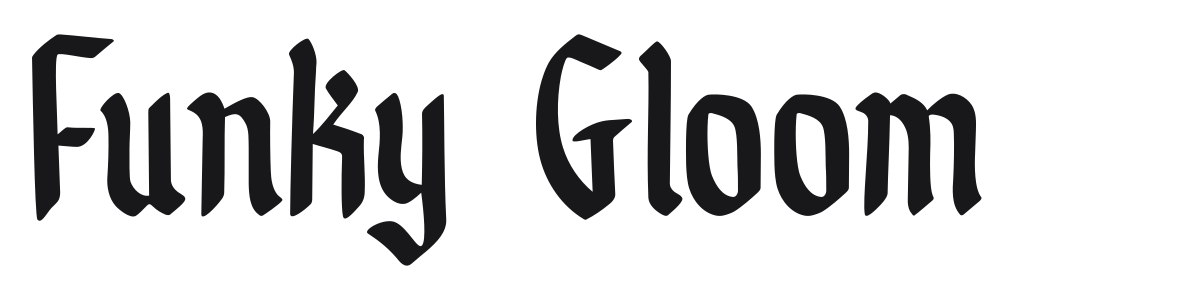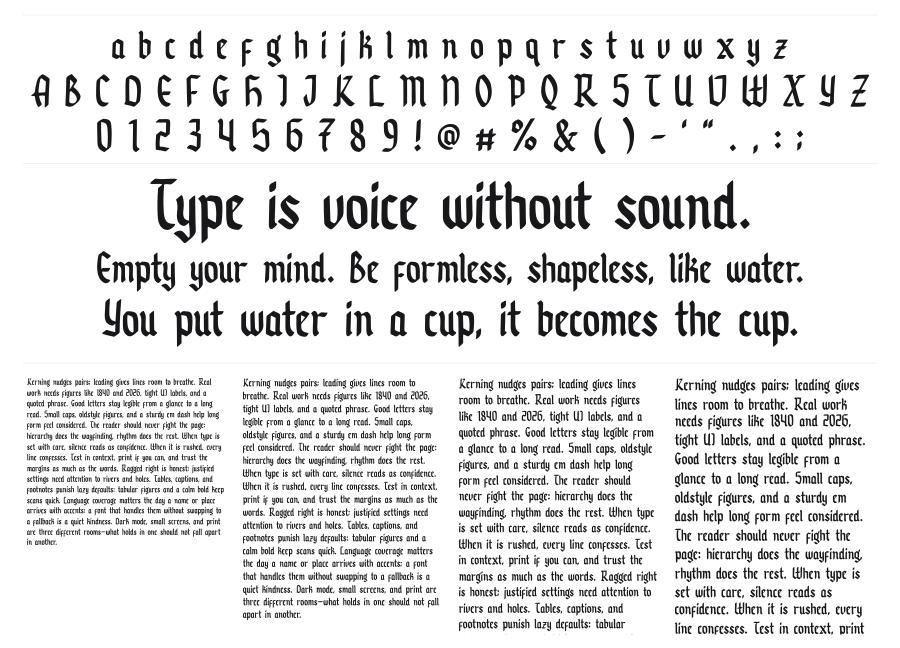
Funky Gloom
Funky Gloom is a heavy Gothic blackletter with angular, notched joints and a raw, confrontational weight. It draws from classic medieval scripts but pushes them into darker, more aggressive territory that feels at home on album covers, streetwear, and horror branding. The high stroke contrast and sharp terminals keep it visually sharp at large sizes.